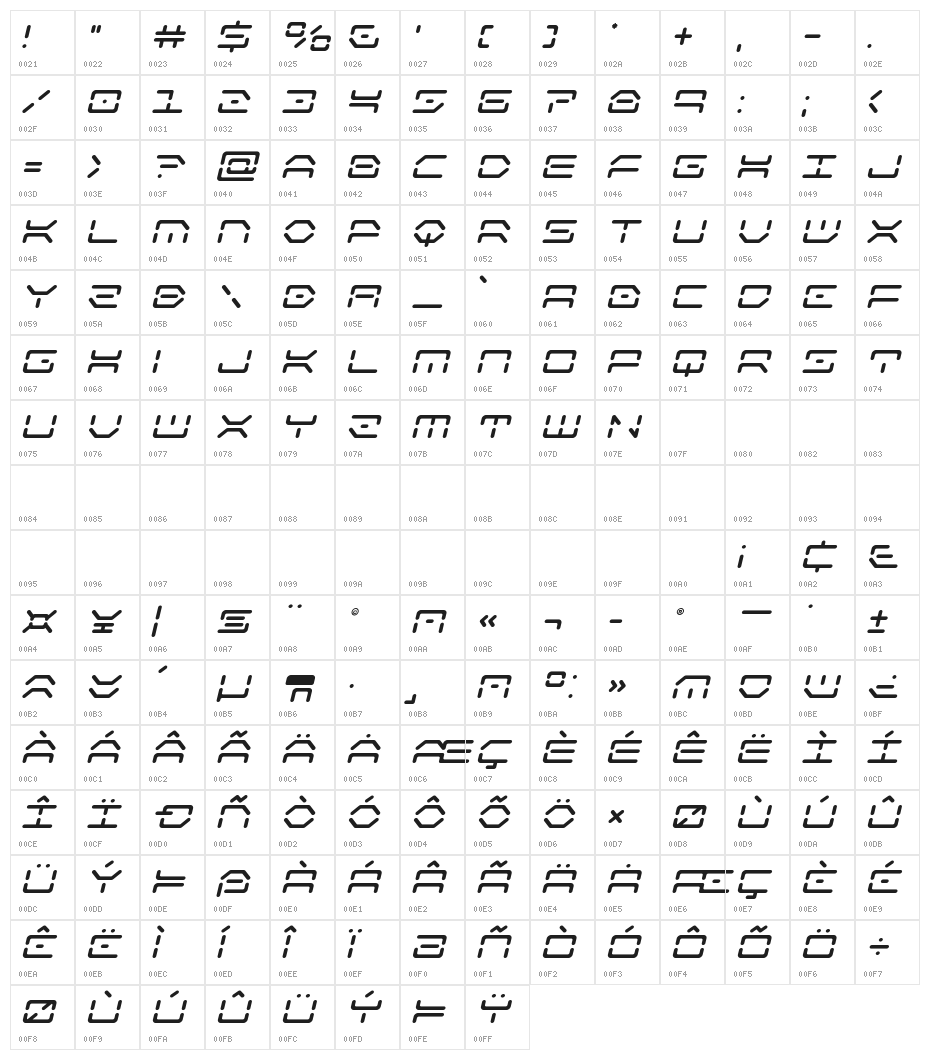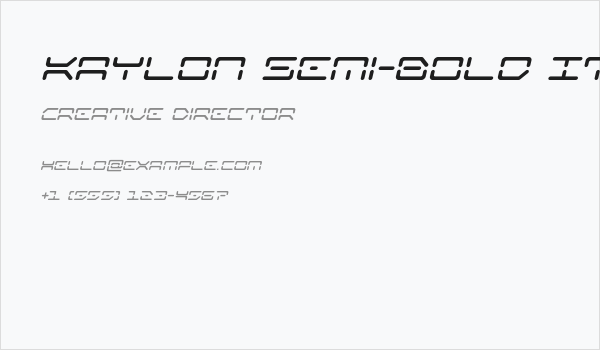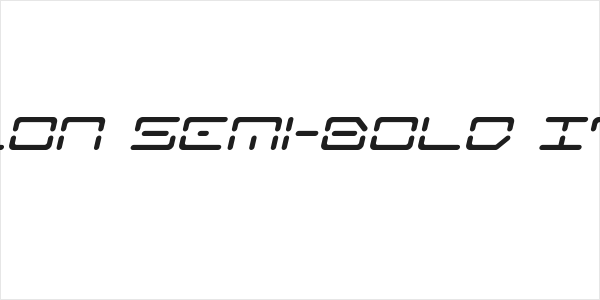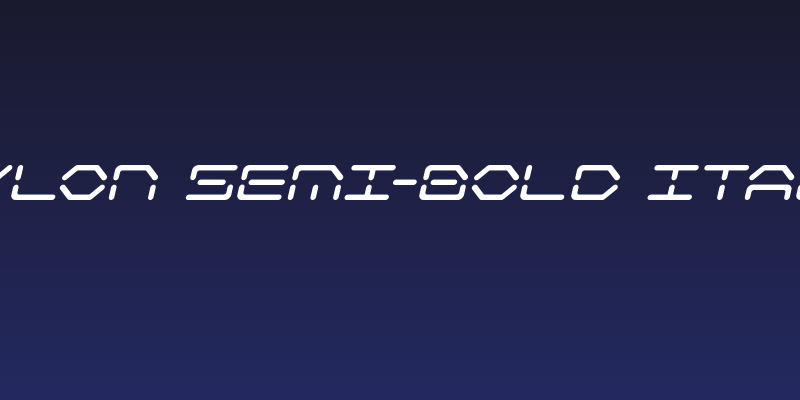
Kaylon Semi-Bold Italic Font
Kaylon Semi-Bold Italic Description
This font exhibits a futuristic and geometric design, characterized by its unique stencil-like appearance. The letters are formed with distinct breaks, giving it a modern and technical feel. The italic style adds a dynamic and forward-leaning aspect, enhancing its contemporary look. The characters are uniformly structured, maintaining a consistent height and width, which contributes to its clean and organized presentation. The numerals and special characters follow the same design principles, ensuring a cohesive visual identity across all elements. This font's design is ideal for projects that require a cutting-edge and innovative aesthetic.
| Proposed Projects | Ideal for technology branding, sci-fi themed designs, modern advertising, and innovative product packaging. |